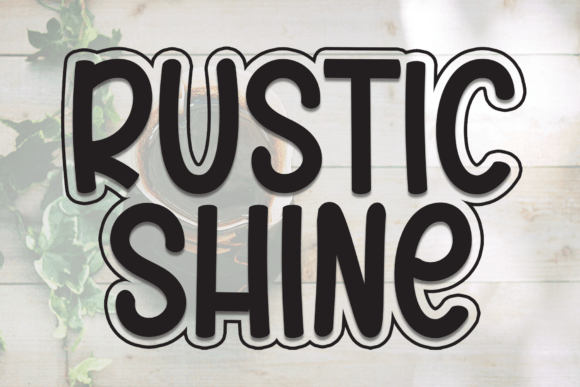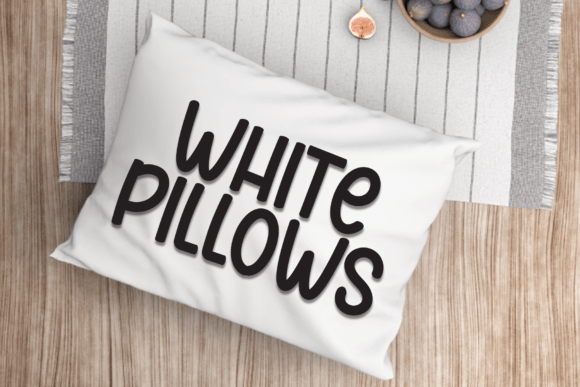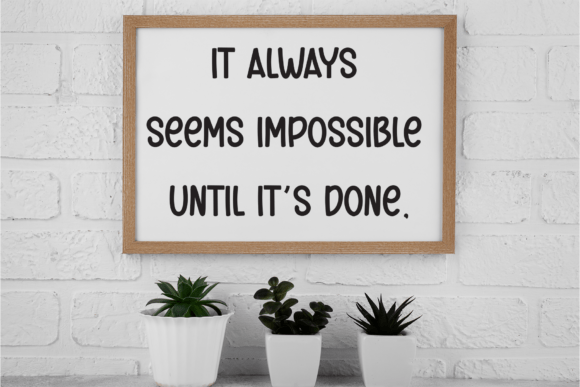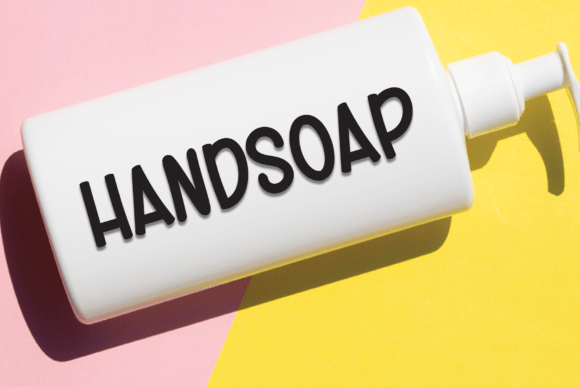
Rustic Shine Font: A Cute & Playful Display Font for Cricut Crafts
About the Rustic Shine Font
Unleash your creativity with Rustic Shine Font, a versatile font perfect for a wide range of applications. Rustic Shine is a casual and neat display font that radiates a fresh, friendly vibe. With clean lines and a relaxed structure, it’s perfect for packaging, posters, and social media graphics. The approachable design adds charm and clarity to projects while maintaining a polished appearance.
Rustic Shine’s friendly, approachable nature makes it ideal for branding projects needing a touch of casual elegance, particularly for food and beverage, lifestyle, or craft businesses. It excels in headlines, short taglines, and logos, adding visual appeal without overwhelming the design. Avoid using it for large blocks of body text or UI elements where readability is paramount; its display-oriented design isn’t optimized for extended reading.
Pairing Rustic Shine effectively requires considering its casual yet refined aesthetic. A clean sans-serif like Montserrat or Open Sans provides a strong contrast and enhances readability when used for supporting text. For a more playful feel, a rounded geometric sans-serif such as Poppins could be used. Conversely, a delicate script font adds a touch of sophistication for special elements.
The font’s overall personality is best described as optimistic and approachable, conveying warmth and approachability without sacrificing clarity. This makes it suitable for brands that want to project a friendly, yet professional image.
Rustic Shine Font Usage Examples
Rustic Shine Font Example